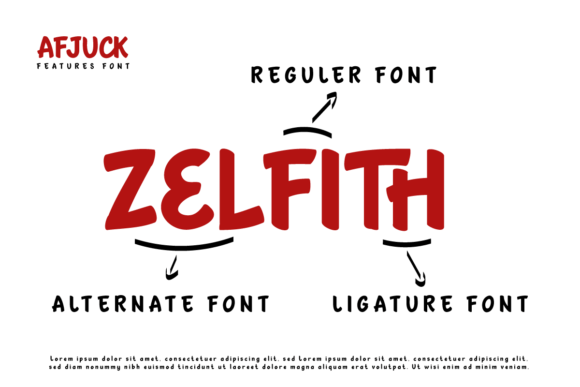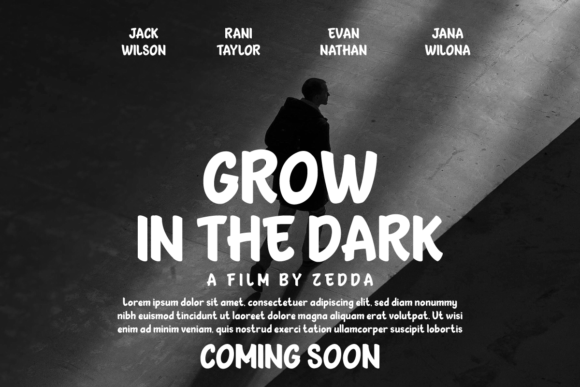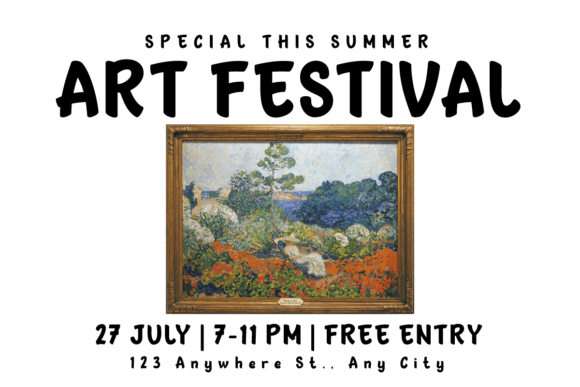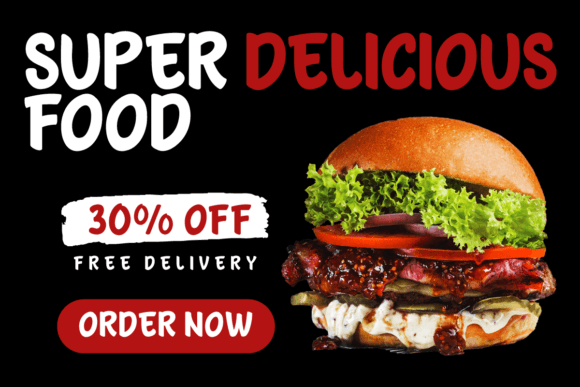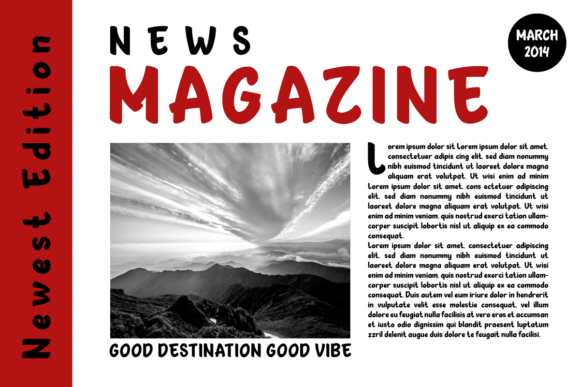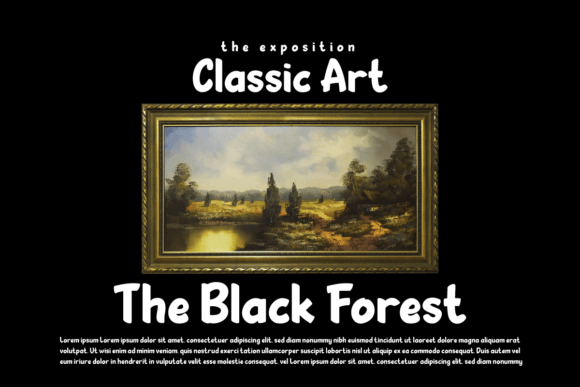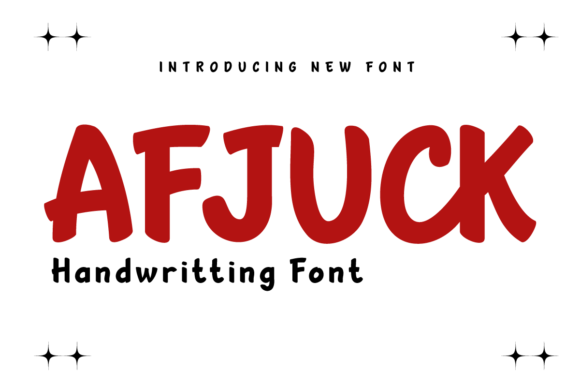
Introducing AFJUCK Font: Elevate Your Designs with Authentic Handwriting
In the world of typography, a well-crafted font can make all the difference in elevating your designs from ordinary to extraordinary. For designers and crafters seeking to add a touch of elegance and individuality to their projects, AFJUCK Font is an exceptional choice. This captivating display typeface effortlessly captures the essence of authentic handwriting, bringing a unique charm to a wide range of design endeavors.
The Art of AFJUCK Font
AFJUCK Font is a carefully crafted typeface that embodies the perfect blend of style and individuality. Its fluid ligatures and alternate characters empower designers to craft distinct compositions with creativity, making it an ideal choice for projects that require a personal touch. From invitations and branding materials to digital and print media, AFJUCK Font adds an artistic touch that sets your designs apart.
Key Features of AFJUCK Font
• Authentic Handwriting Style: AFJUCK Font boasts an authentic handwriting style that brings a human touch to your designs.
• Fluid Ligatures: The font features fluid ligatures that add a natural flow to your text, making it perfect for creative projects.
• Alternate Characters: With a range of alternate characters, AFJUCK Font offers designers the flexibility to experiment with different styles and create unique compositions.
• Multilingual Support: Overcome language barriers effortlessly with AFJUCK Font’s multilingual support, making it a versatile choice for seamless communication across cultures.
Design Applications for AFJUCK Font
AFJUCK Font is an incredibly versatile typeface that can be used in a variety of design applications, including:
• Invitations and Event Materials: Add a touch of elegance to your invitations, wedding cards, and event materials with AFJUCK Font’s authentic handwriting style.
• Branding and Packaging: Use AFJUCK Font to create unique and memorable brand identities that stand out in a crowded market.
• Digital and Print Media: From social media graphics to print advertisements, AFJUCK Font is perfect for creating eye-catching visual content.
Benefits of Using AFJUCK Font
By incorporating AFJUCK Font into your design projects, you can:
• Elevate Your Designs: Add a touch of elegance and sophistication to your designs with AFJUCK Font’s authentic handwriting style.
• Stand Out from the Crowd: With its unique charm and character, AFJUCK Font helps your designs stand out in a crowded market.
• Enhance Creativity: AFJUCK Font’s fluid ligatures and alternate characters empower designers to experiment with different styles and create unique compositions.
AFJUCK Font is a captivating display typeface that offers designers a unique opportunity to elevate their designs with the elegance of handwritten artistry. With its authentic handwriting style, fluid ligatures, and alternate characters, AFJUCK Font is perfect for designers and crafters seeking to add a touch of individuality to their projects. Explore AFJUCK Font today and discover how it can help you redefine your designs and bring your creative vision to life!